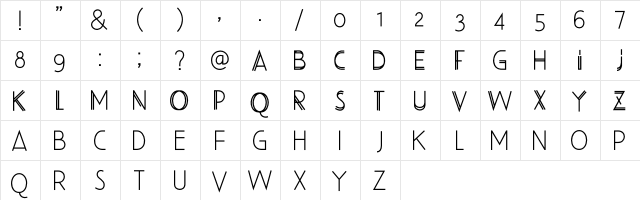
RS Unique
| Designer | XenonniteRS |
Design Context for RS Typeface
RS offers clean, dependable letterforms without strong stylistic allegiance, making it a practical choice for designers who need flexibility.